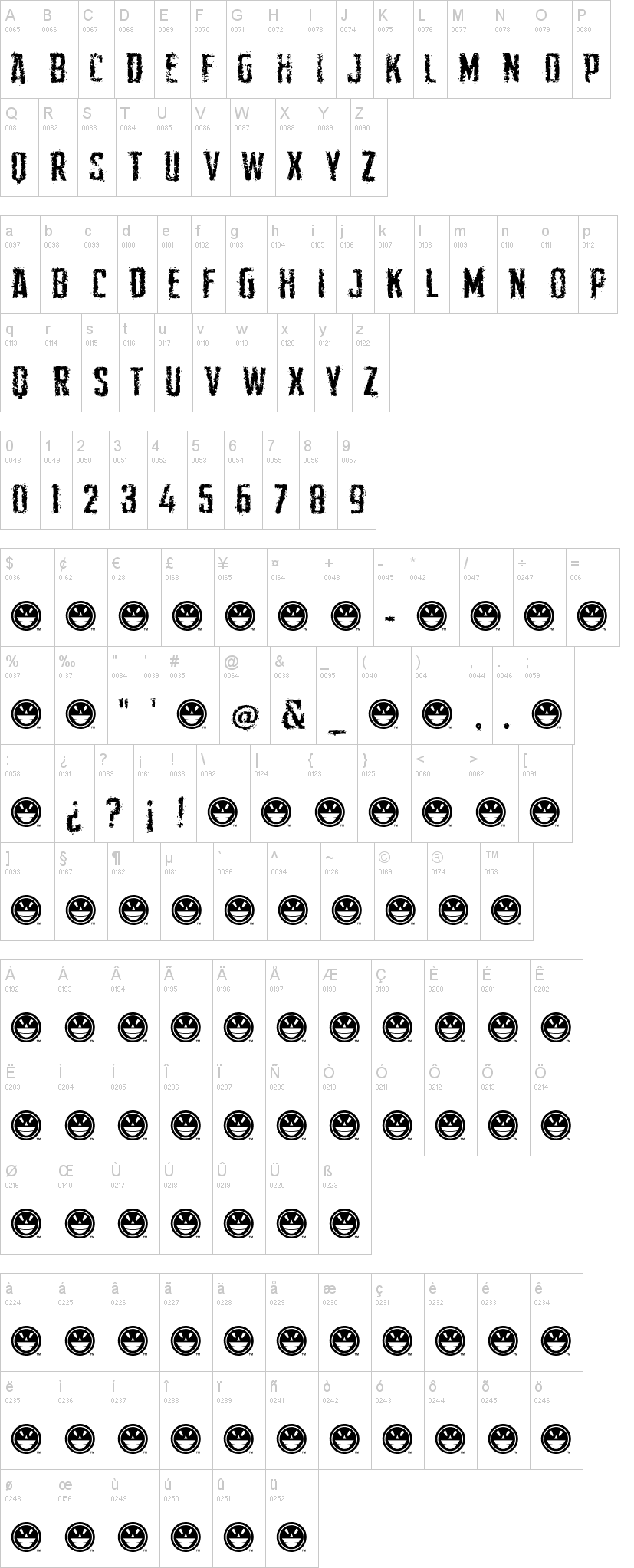
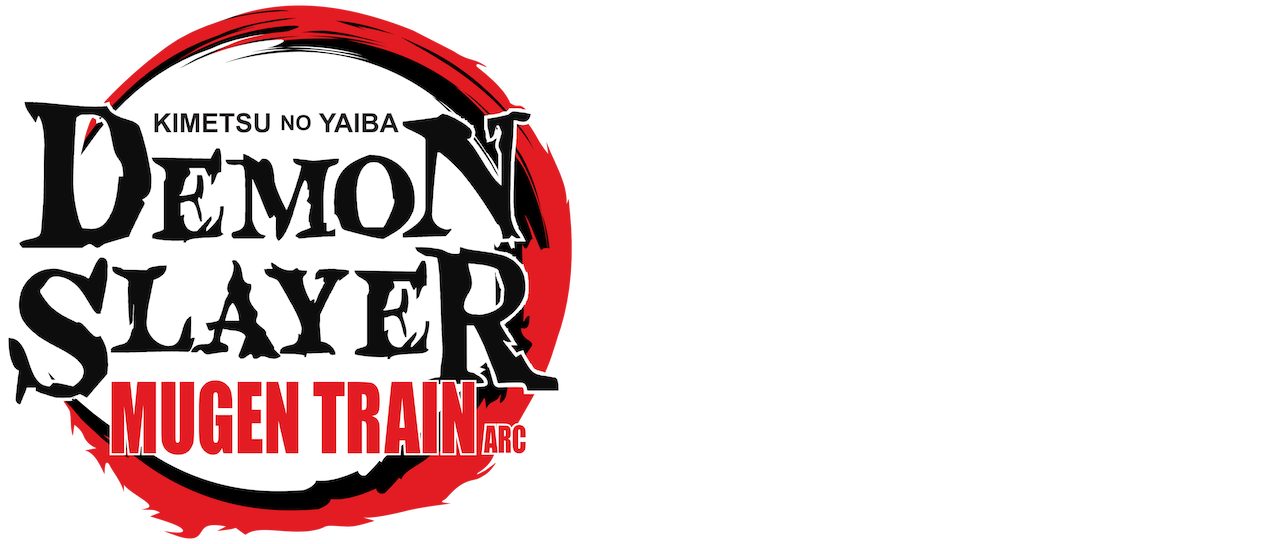
Demon slayer font download. Every font is free to download! Demon slayer font search results,fontke for you to share demon slayer resources,provide font download,font upload,font identification,font conversion,font preview,font generation,font design sample,font information and other services. A steep drawing line with a mixture of thick and thin lines seems to represent a furious dragon emotional inflection.
Anyone know what this font is? Kimetsu no yaiba the movie. The text generator section features simple tools that let you create graphics with fonts of different styles as well as various text effects;
Kimetsu no yaiba the movie: The font is a typeface designed in a brushstroke style with the image of a fiery and strong young dr. The fonts in use section features posts about fonts used in logos, films, tv shows, video games, books and more;
This font is intended to look both old, demonic, and wicked. Click images to large view demon slayer film font fontlot download fonts. Kind of fantasy with a slight graffiti flair.
Click images to large view slayer font. Click images to large view demon sker free font in ttf format for free download 21934kb The font is a calligraphic brushstroke design typeface created in the image of a dragon drifting wildly in the dark clouds.
Anyone know what this font is. We hope you enjoy our site and please don't forget to vote for your favorite demon slayer fonts. The sans serif in red looks like impact or the freebie ignite.the “demon slayer” uses a cleaner version of blood crow condensed from iconian fonts.
I’m about to get my first neopixel saber and i was wondering if anyone knows of a font that’s inspired by the anime demon slayer. 1558 search results for demon slayer. Kokuryu font (demon slayer font) is used for japanese anime demon slayer:
Kimetsu no yaiba by koyoharu gotouge. The font collection section is the place where you can browse, filter, custom preview and. Download demon slayer fonts free.
Japanese font, hiragino gyosho is based on the design of calligrapher tanaka and is made. Mugen train, is a 2020 japanese animated dark fantasy period action film based on the manga series demon slayer: Need help finding the demon slayer font identifythisfont.
Demon slayer film font fontlot download fonts. Click to find the best 28 free fonts in the demon style. Hd wallpapers and background images
You can also upload and share your favorite demon slayer wallpapers. Kimetsu no yaiba tanjiro kamado fire katana red eyes scar. Tons of awesome demon slayer wallpapers to download for free.
Mugen train, also known as demon slayer: Demon slayer is a fancy and display typeface that comes in a ramshackle texture. Nicknames, cool fonts, symbols and tags for demonslayer.